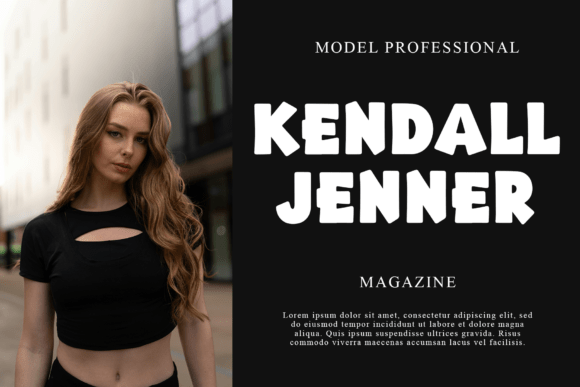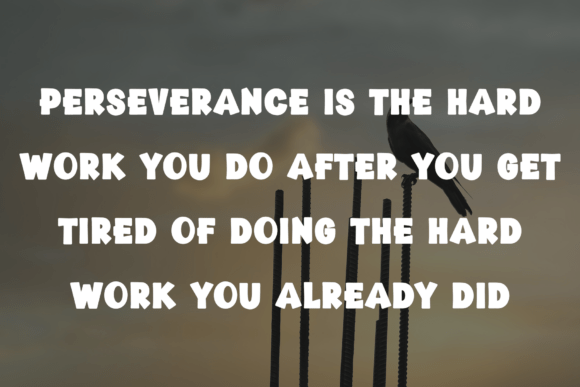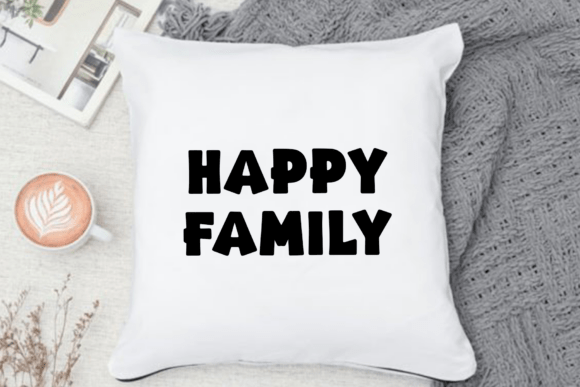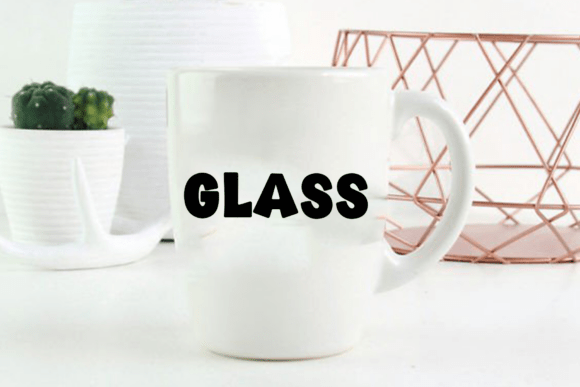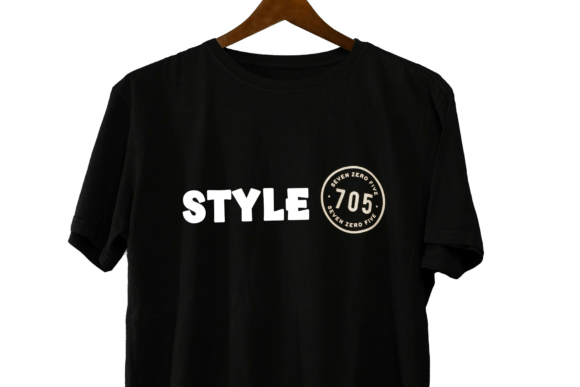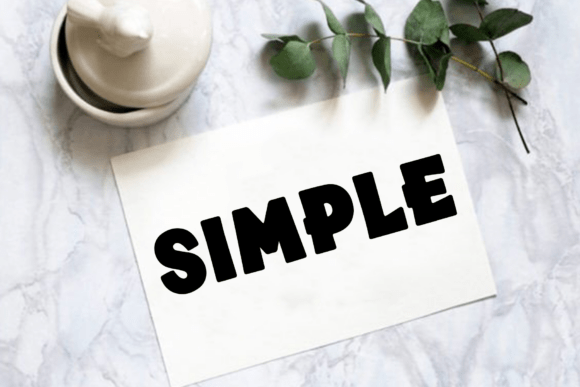
Introduction to Hey Lover Font
Have you ever been stuck in a creative rut, searching for the perfect font to elevate your project from ordinary to extraordinary? I’ve been there too! One day, while browsing through a collection of free downloads, I stumbled upon the Hey Lover Font – and it was love at first sight. Its playful, hand-drawn strokes and charming aesthetic immediately caught my attention, and I knew I had to share it with fellow designers.
As a valuable resource for designers, the Hey Lover Font offers a unique touch to any project. Whether you’re working on a personal project, creating social media graphics, or crafting invitations, this font is sure to bring a warm and friendly feel to your design. With its high-quality glyphs and transparent background, it’s perfect for use in various application engines, including Adobe Photoshop, Corel, and Adobe Illustrator.
So, let’s dive into the world of Hey Lover Font and explore its features, benefits, and uses. Whether you’re a seasoned designer or just starting out, this font is sure to become a trusted design resource in your creative arsenal.
Key Features of Hey Lover Font
- High-quality design: The Hey Lover Font is a professional and elegant font perfect for creative projects.
- Transparent background: This font features a transparent background, making it ideal for designs that require a clean and minimalist look.
- High-resolution: The font is available in high-resolution, making it suitable for use in print materials and large-scale designs.
- Unique characteristics: The Hey Lover Font features a unique, hand-drawn style with a mix of modern and vintage elements, adding a touch of personality to any design.
- Perfect for design resources: This font is an excellent addition to any design resource library, providing a versatile and stylish option for creative projects.
Honest Review: Hey Lover Font
I recently stumbled upon the Hey Lover Font and was excited to give it a try for my latest creative project. As a designer, I’m always on the lookout for high-quality design resources that can elevate my work.
What works well is the Hey Lover Font’s unique and playful style. It’s perfect for adding a touch of whimsy to your designs. The font is also available for free download, which is a definite plus for designers on a budget. The transparent background is another feature I appreciate, as it makes it easy to combine with other design elements.
The font is highly versatile and can be used in a variety of contexts, from digital designs to print materials. It’s also a great choice for designers who want to add some personality to their work.
- Unique and playful style
- Highly versatile
While the Hey Lover Font is a great addition to any designer’s toolkit, there are some limitations to consider. The font may not be suitable for all types of designs, and some users may find the style too bold or overpowering.
Overall, I’m impressed with the Hey Lover Font and would recommend it to designers who are looking for a high-quality, free design resource. With its unique style and versatility, it’s a great choice for a variety of creative projects.
Use the Hey Lover Font with a transparent background to create a striking visual effect. Experiment with different font sizes and colors to add depth and interest to your design. This font is also perfect for creating social media graphics, flyers, and brochures.
The Hey Lover Font is perfect for creative projects such as wedding invitations, birthday party decorations, and social media graphics. Its high-quality design and unique style make it an ideal choice for designers and non-designers alike.